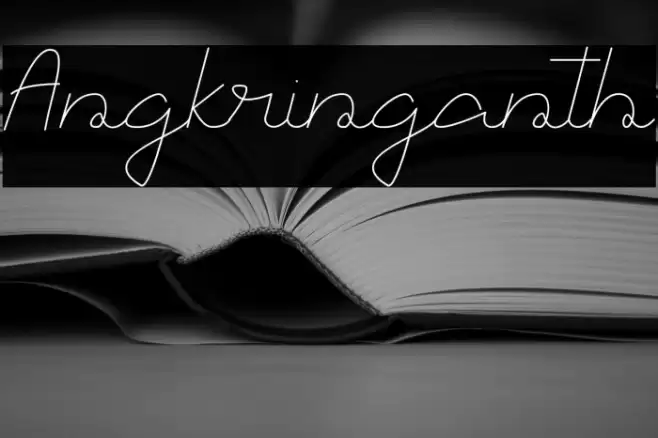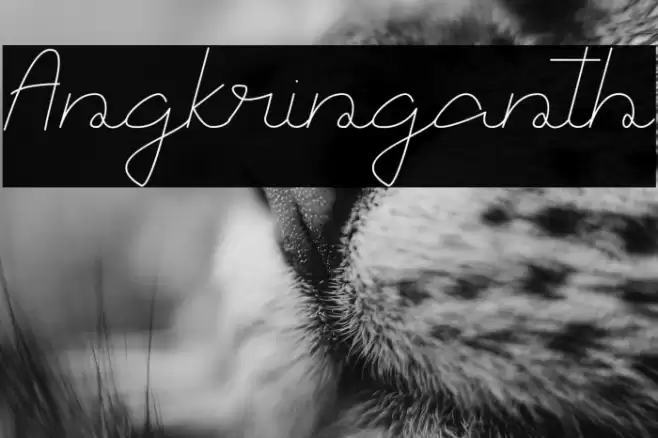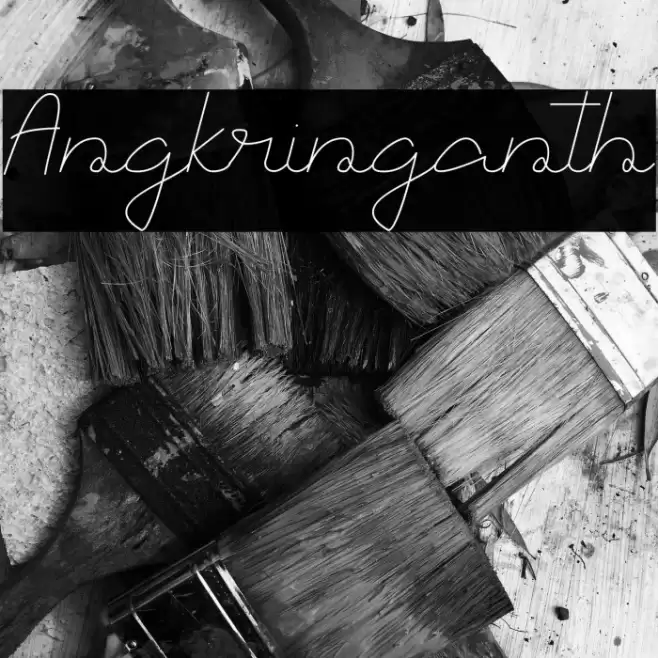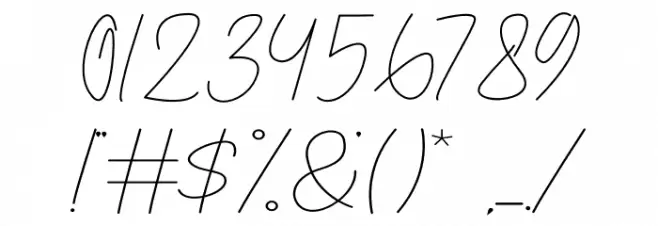
Angkringanth Font
Angkringanth Description
This elegant script font features a flowing, cursive style with smooth, continuous strokes that mimic the fluidity of handwriting. The uppercase letters are tall and slender, while the lowercase letters maintain a consistent baseline, adding to the font's graceful appearance. The numerals are distinct yet harmonize well with the alphabet, and the special characters are crafted with the same attention to detail, ensuring a cohesive look. The font's delicate lines and subtle curves give it a sophisticated and artistic feel, making it ideal for projects that require a personal touch.
A graceful script font with fluid, cursive strokes and a handwritten feel from Uncategorized fonts.
- Proposed Projects: Ideal for wedding invitations, greeting cards, personal branding, and artistic projects.
- Overall Style: Elegant
- Use Case: Logos, Invitations, Personal Branding